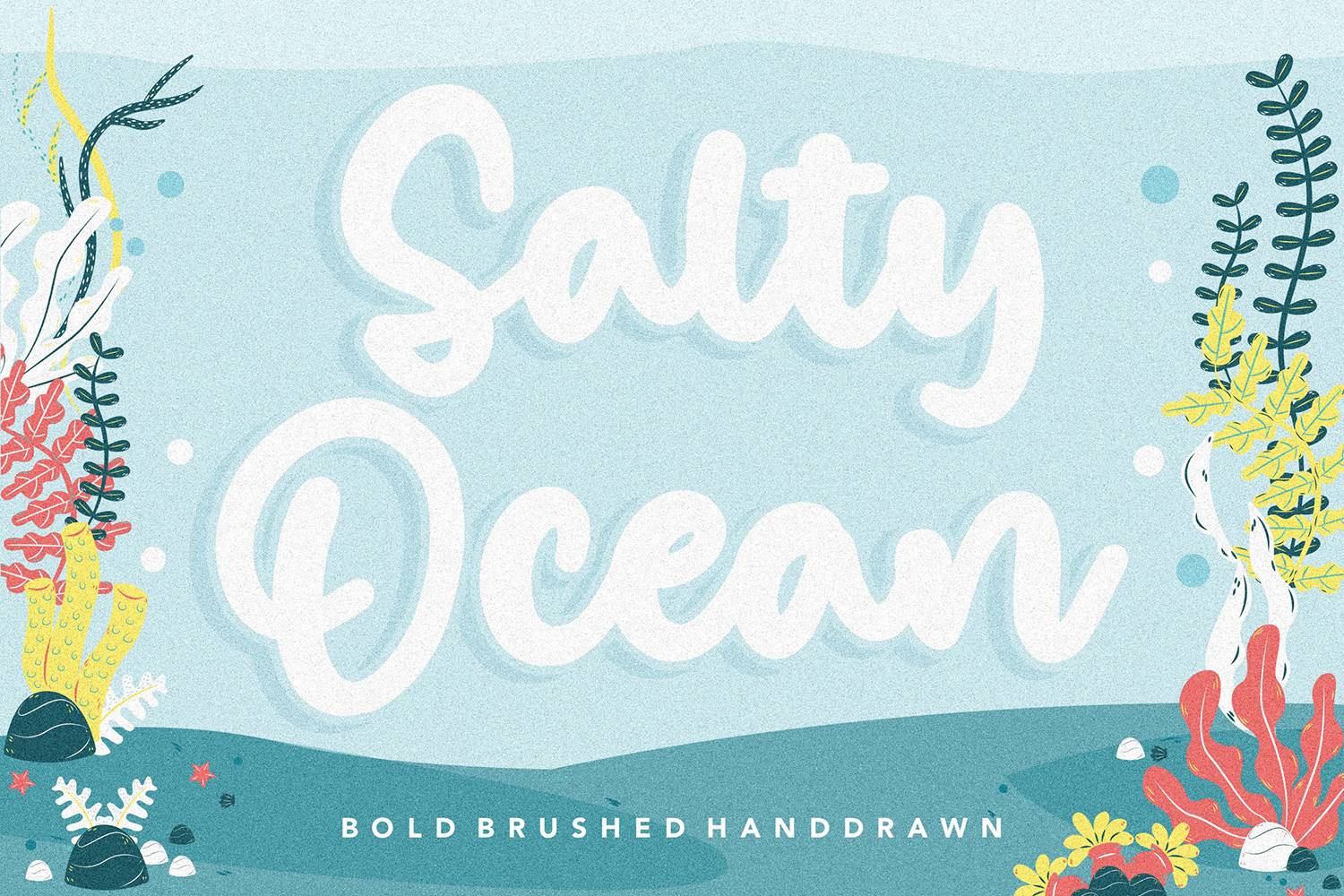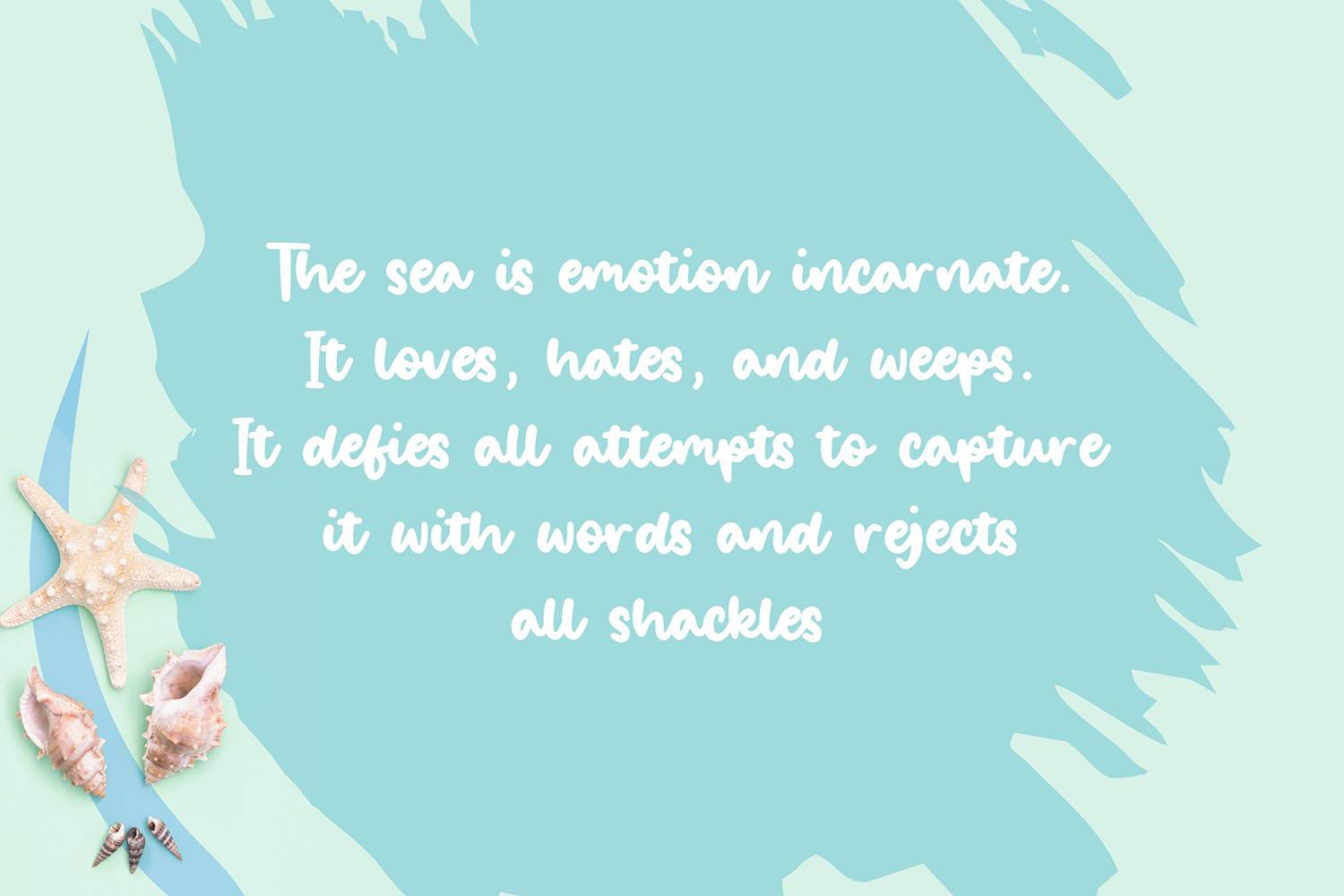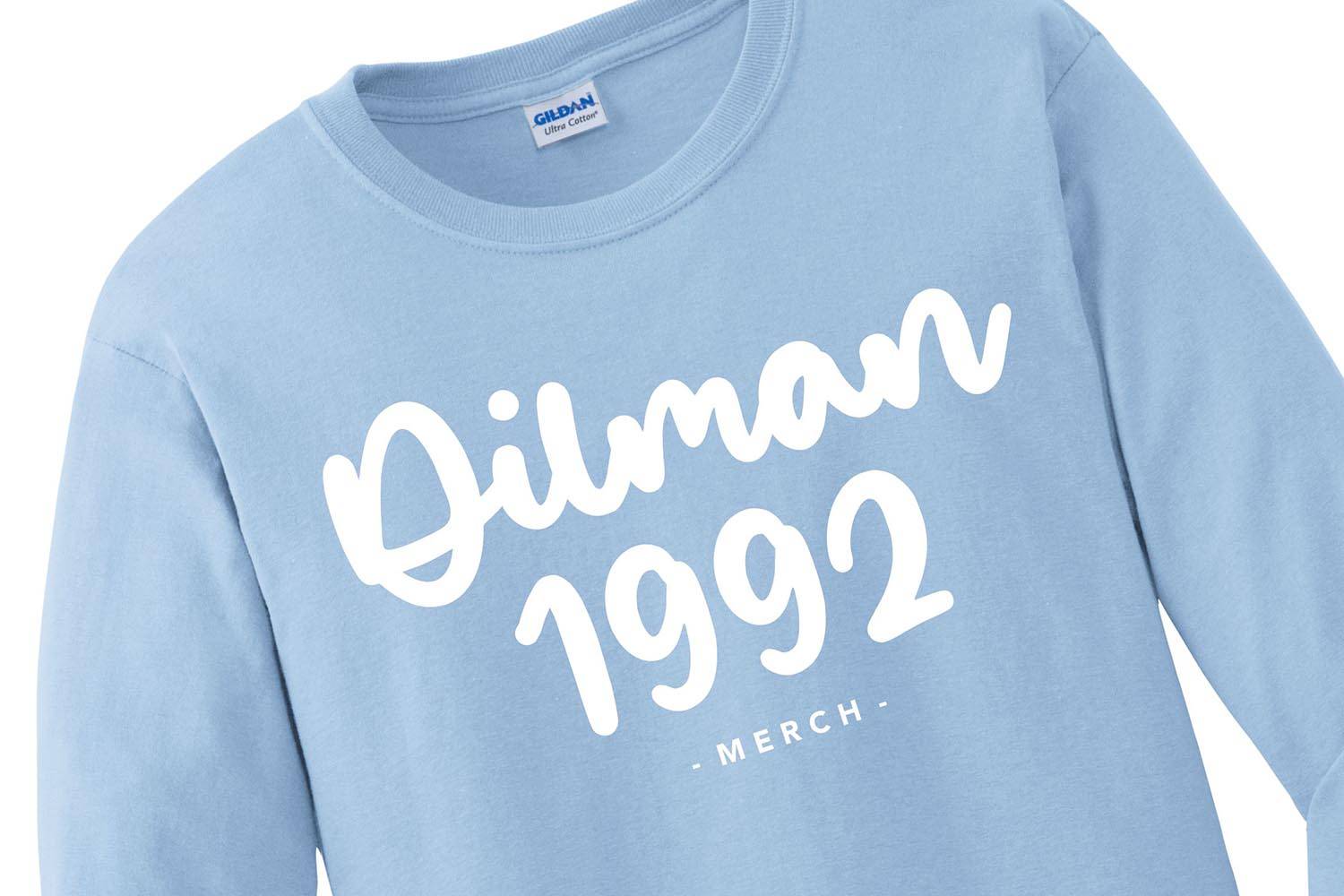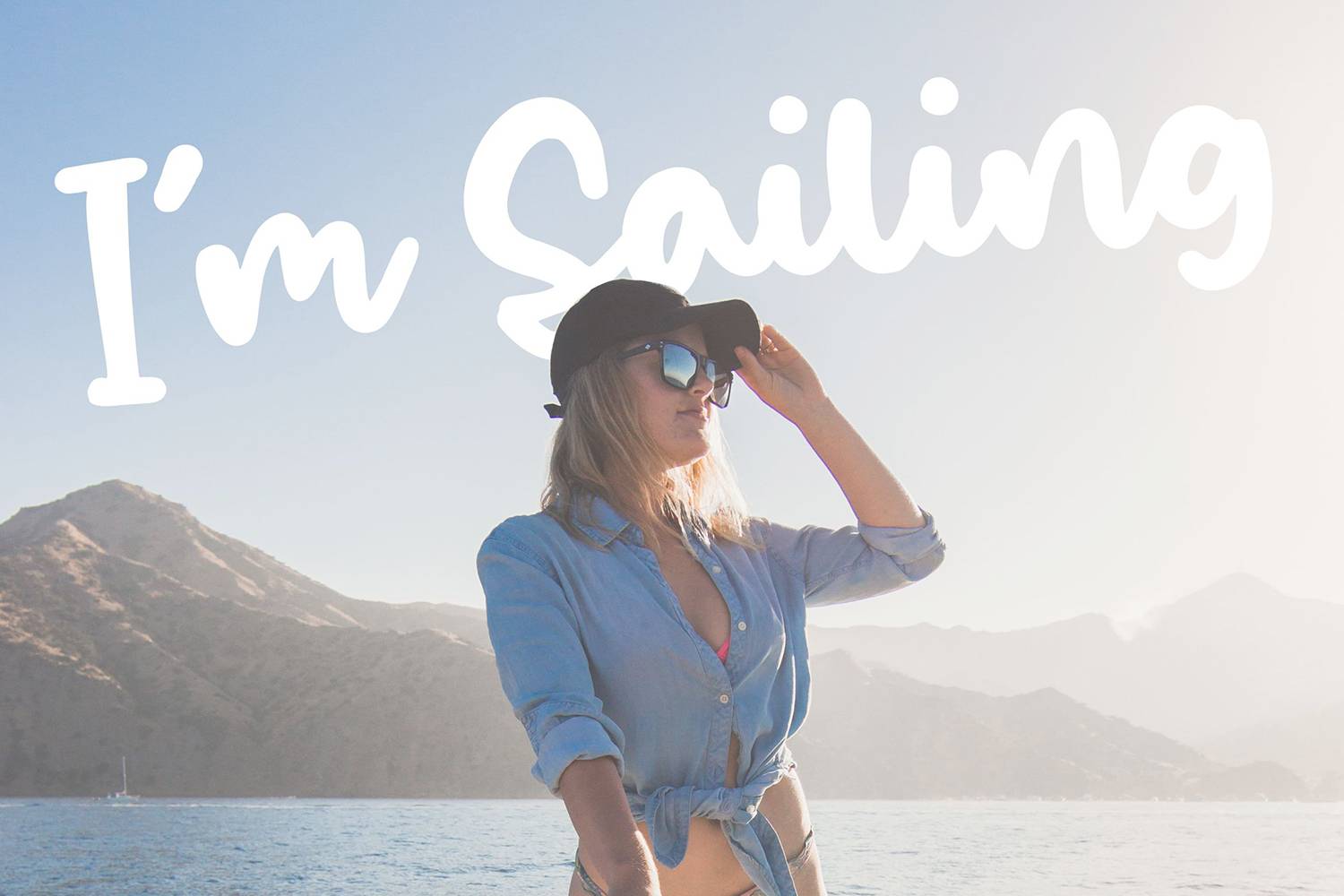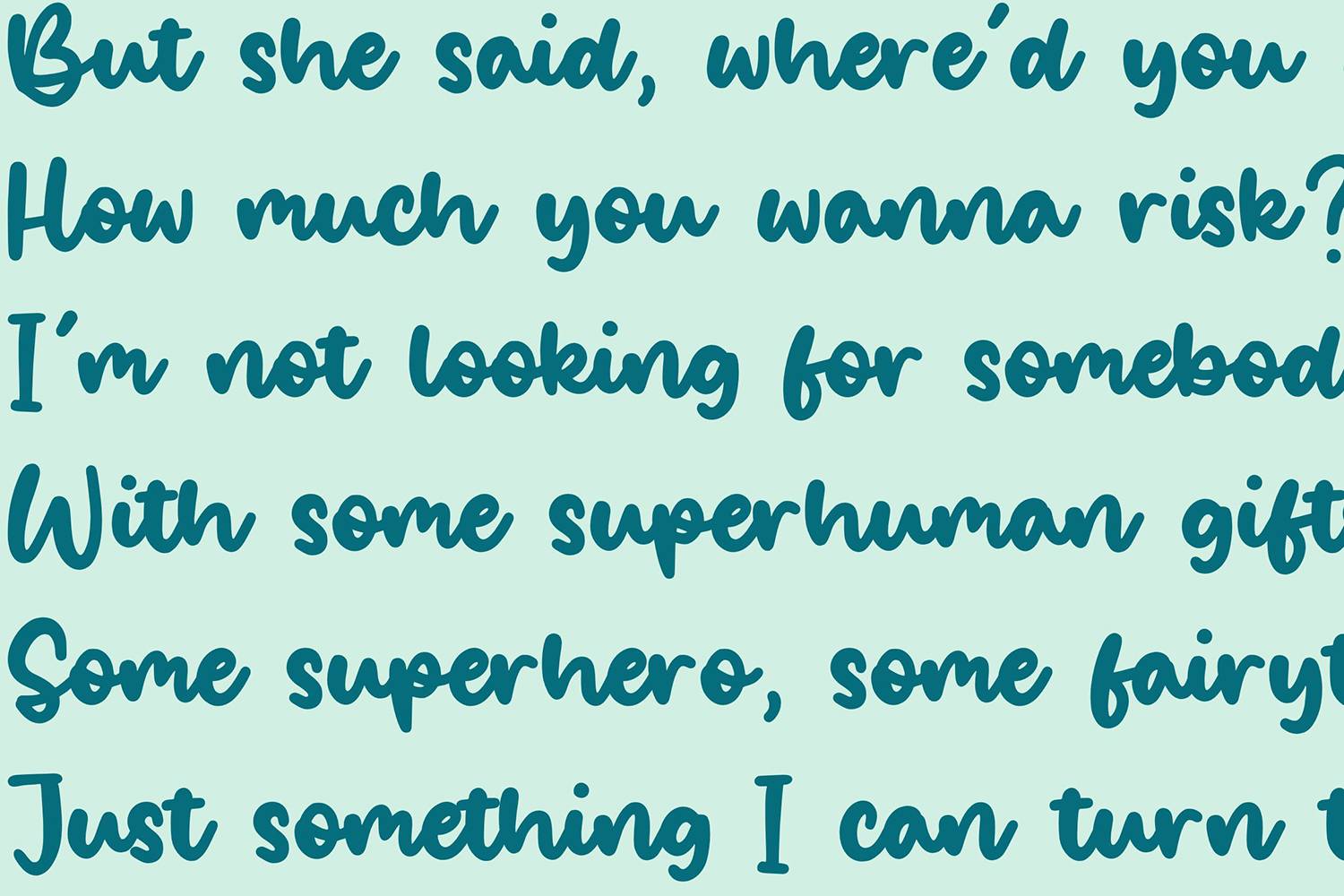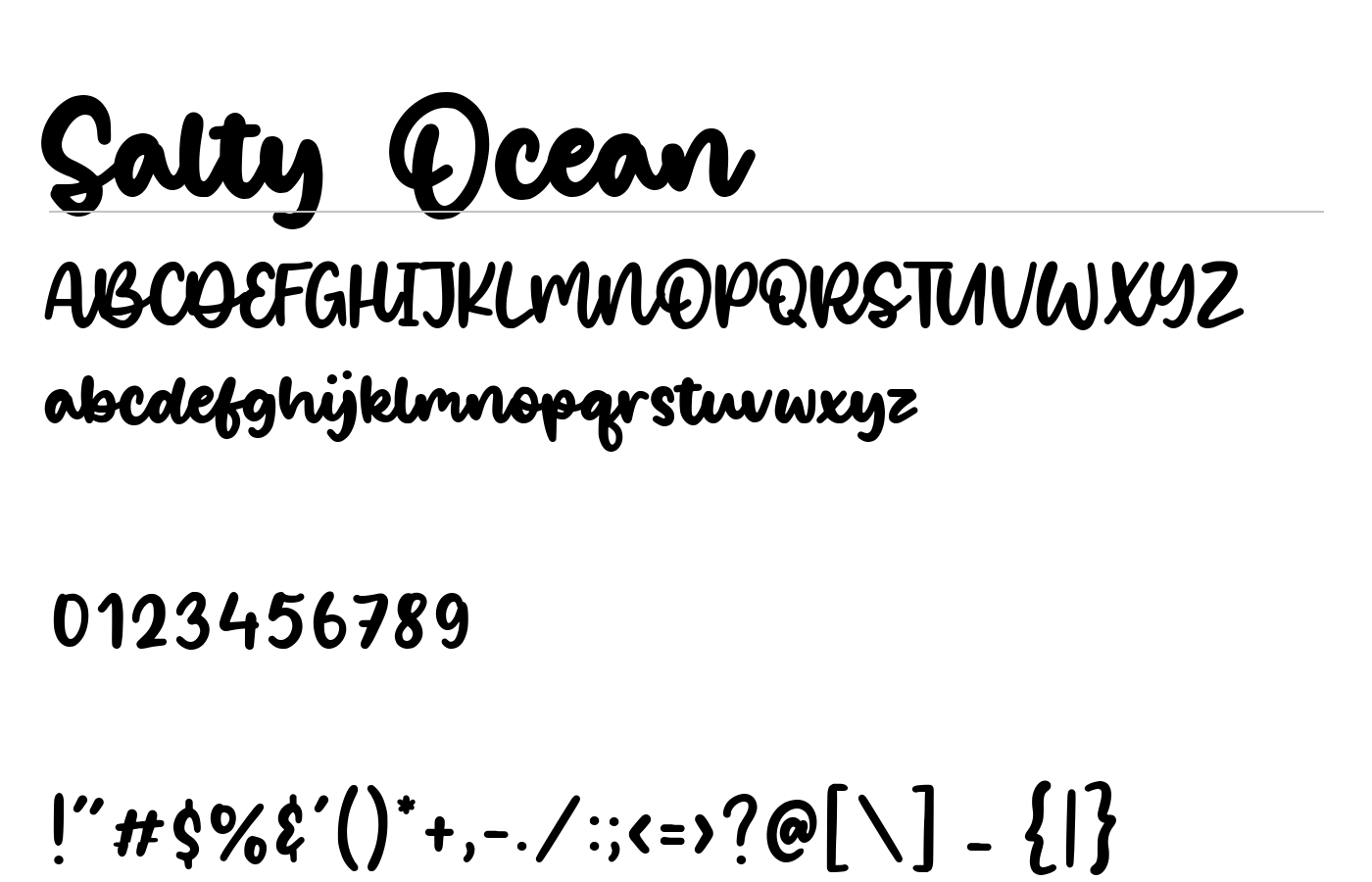
Salty Ocean is a playful, casual script font with a handwritten feel, featuring rounded, bold strokes and smooth curves that create a friendly and approachable look. Its consistent weight and connected letterforms make it ideal for projects that want to convey warmth and creativity, such as logos, invitations, or lifestyle branding. This font works well in both display and short text settings where a lively, informal tone is desired.
Salty Ocean Font
About Salty Ocean Font